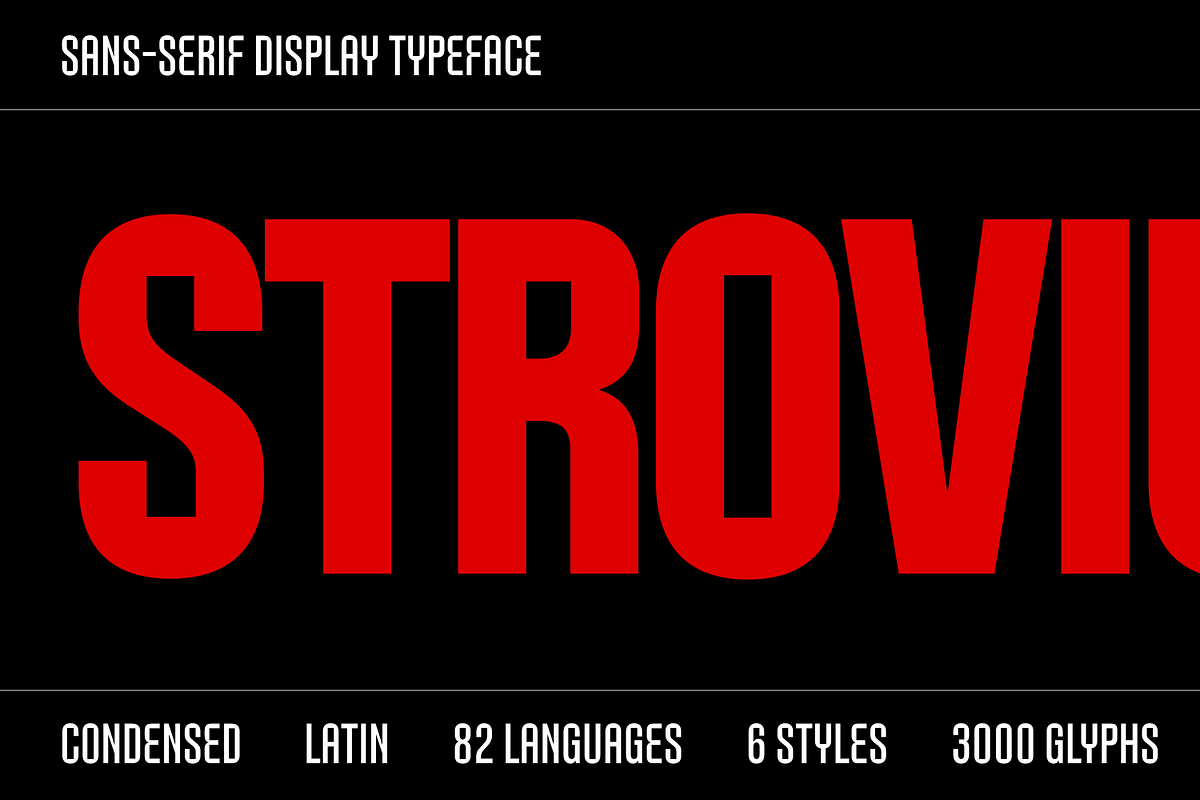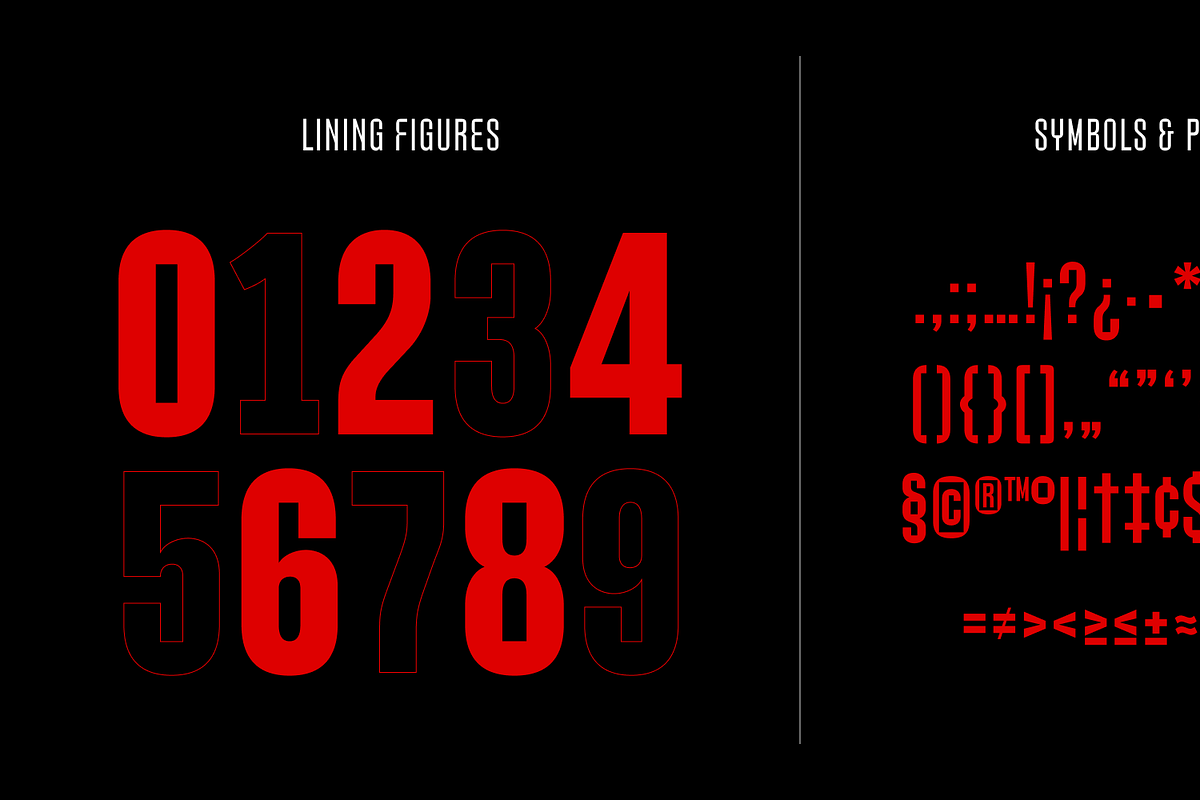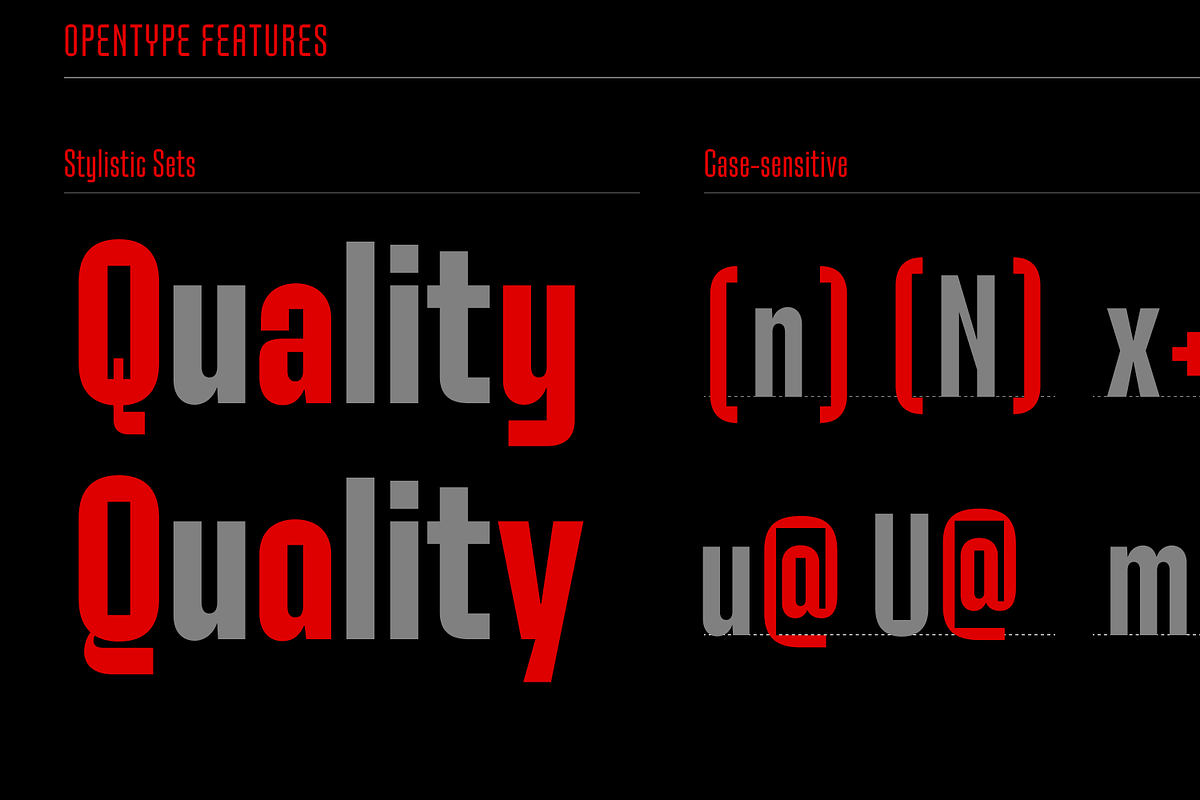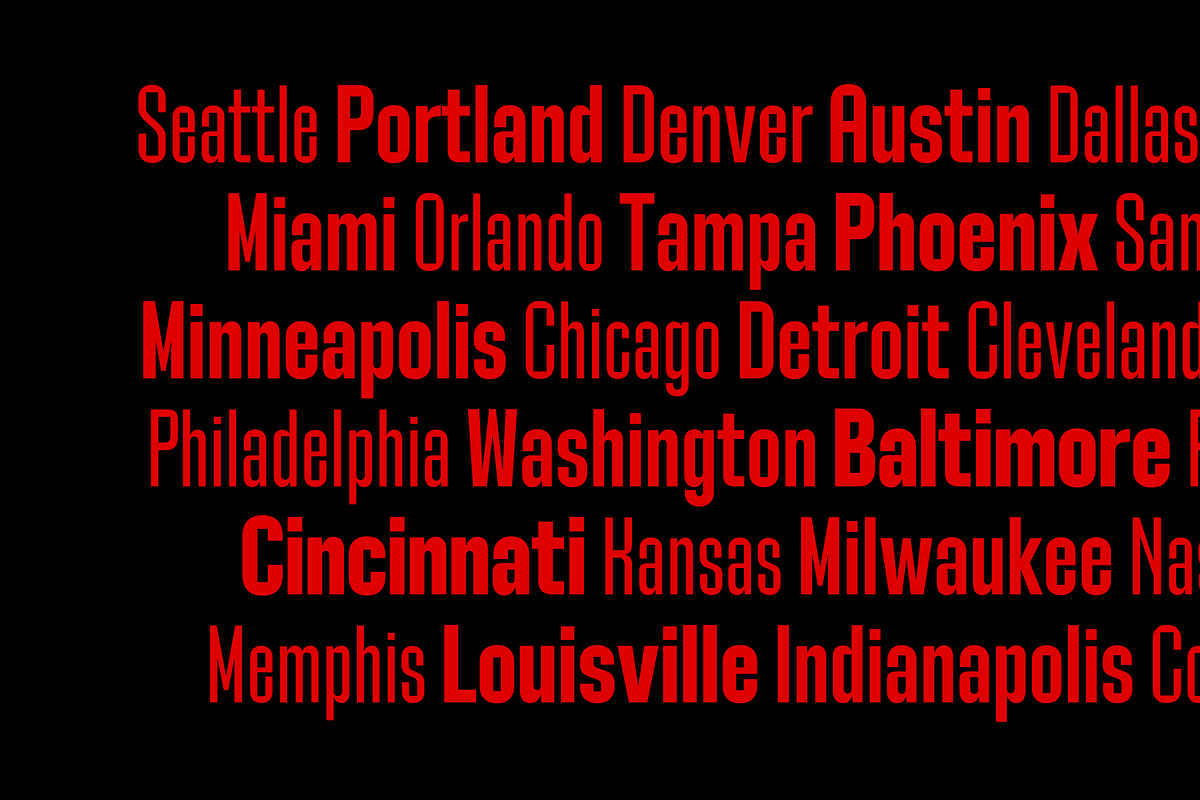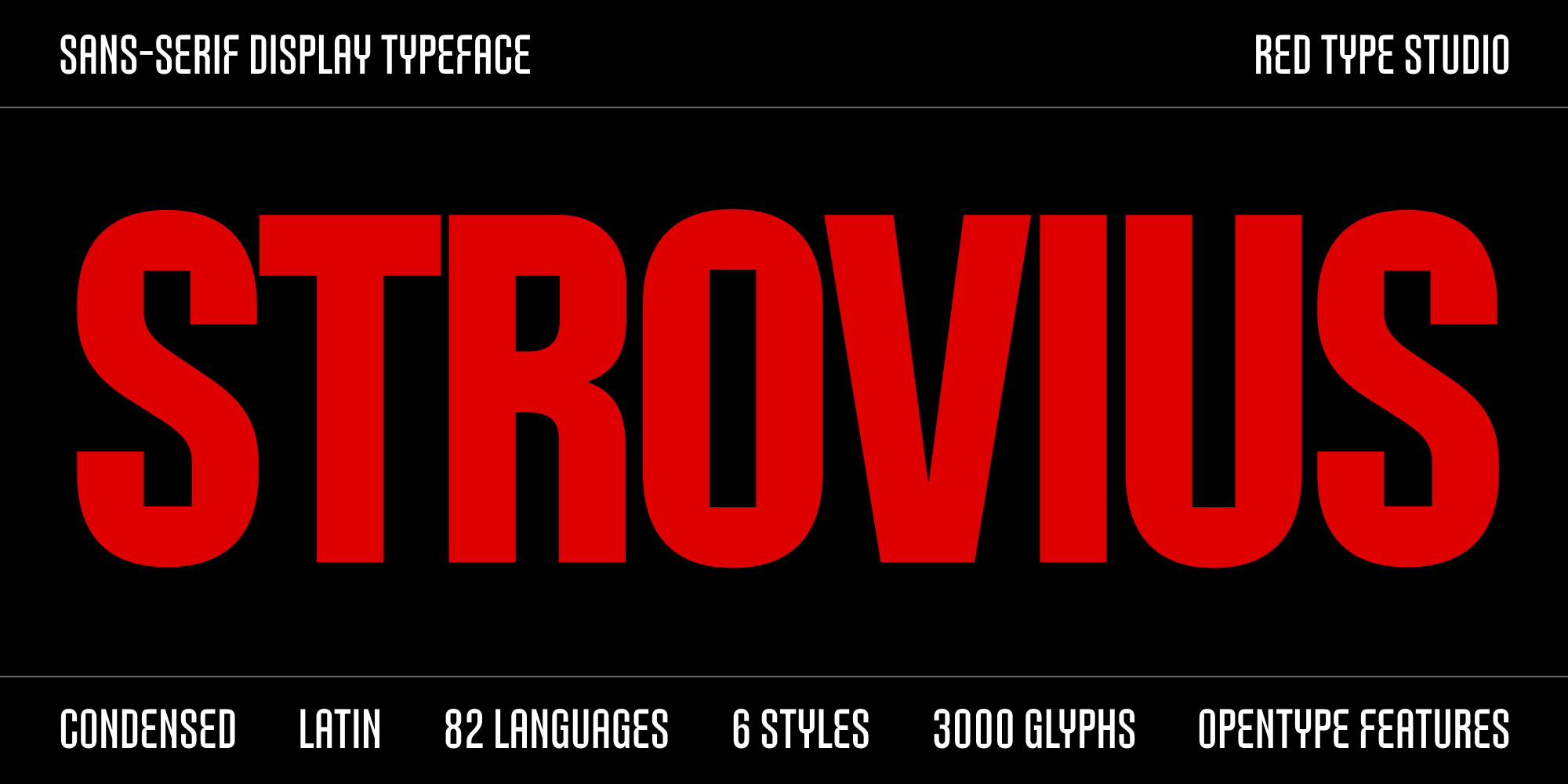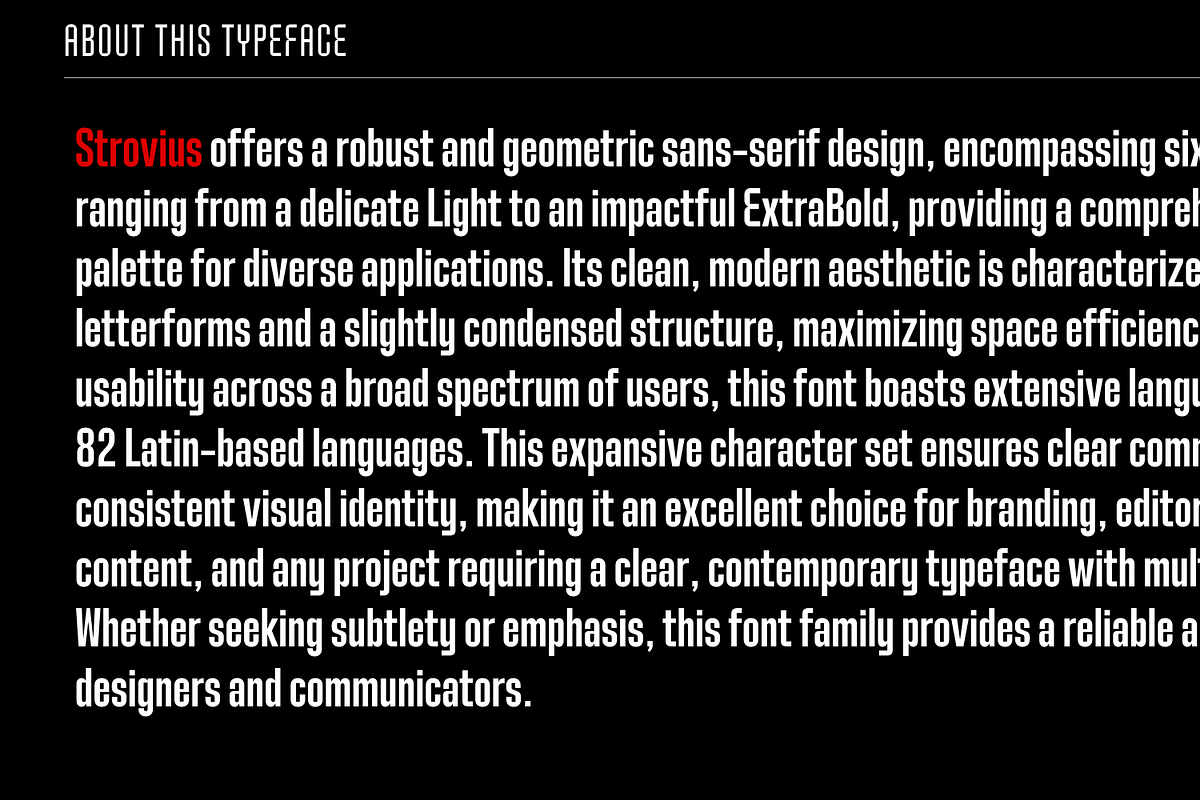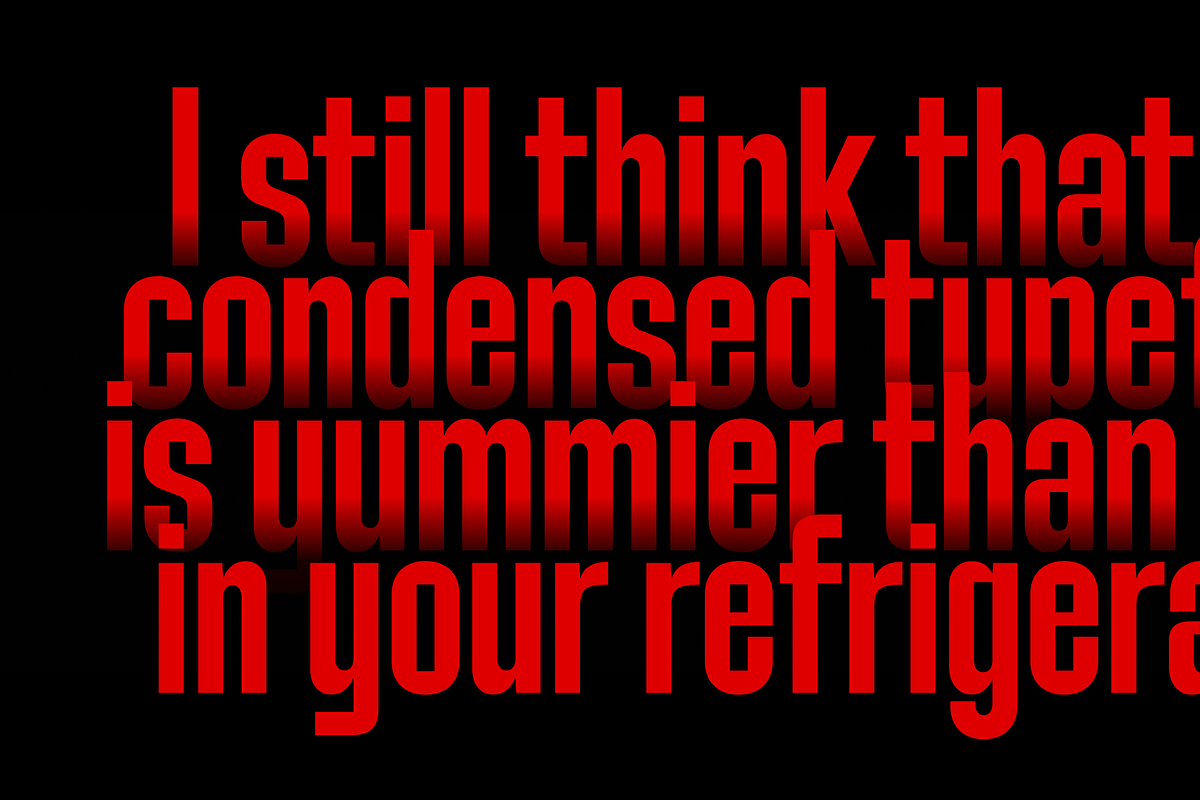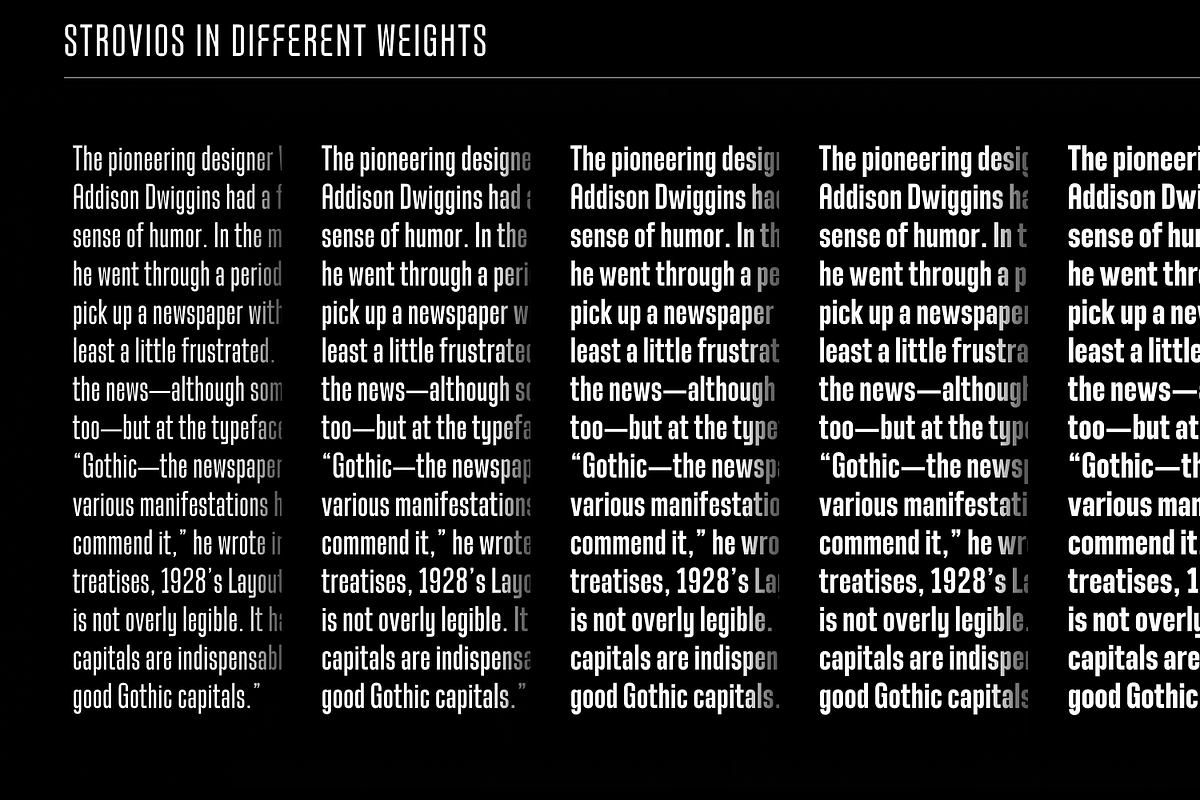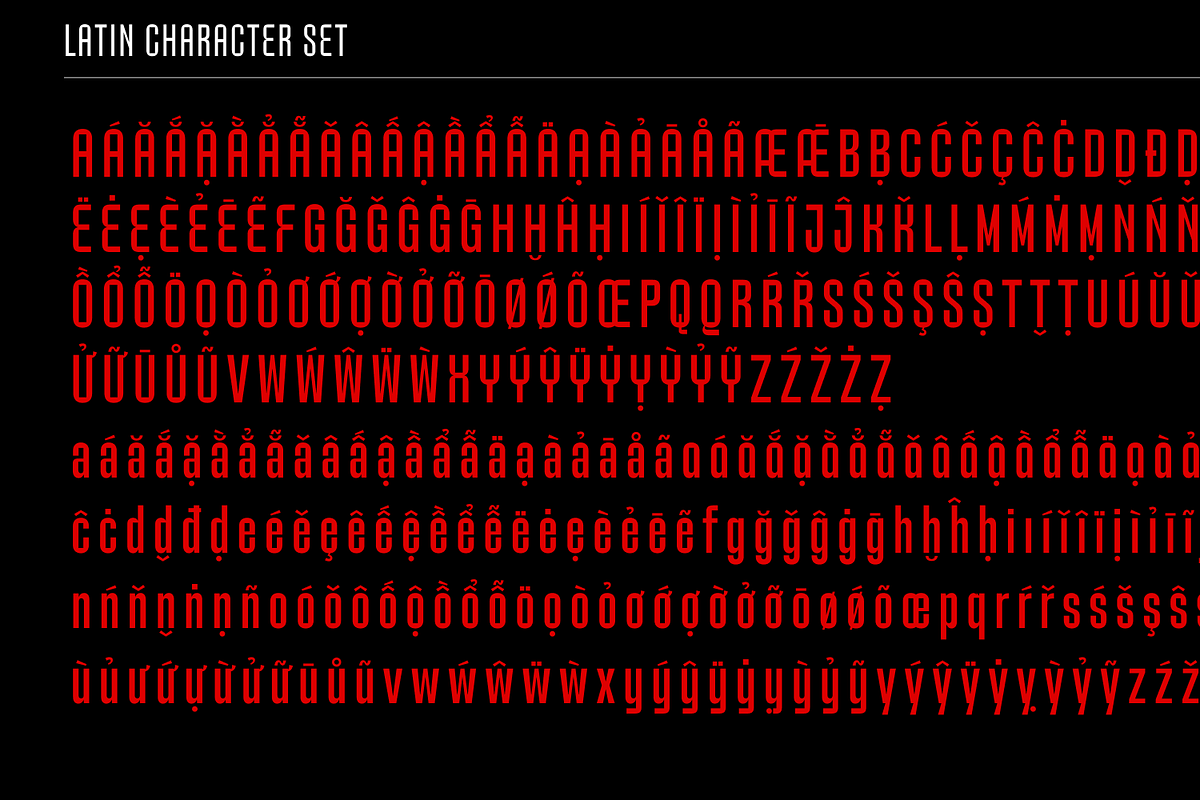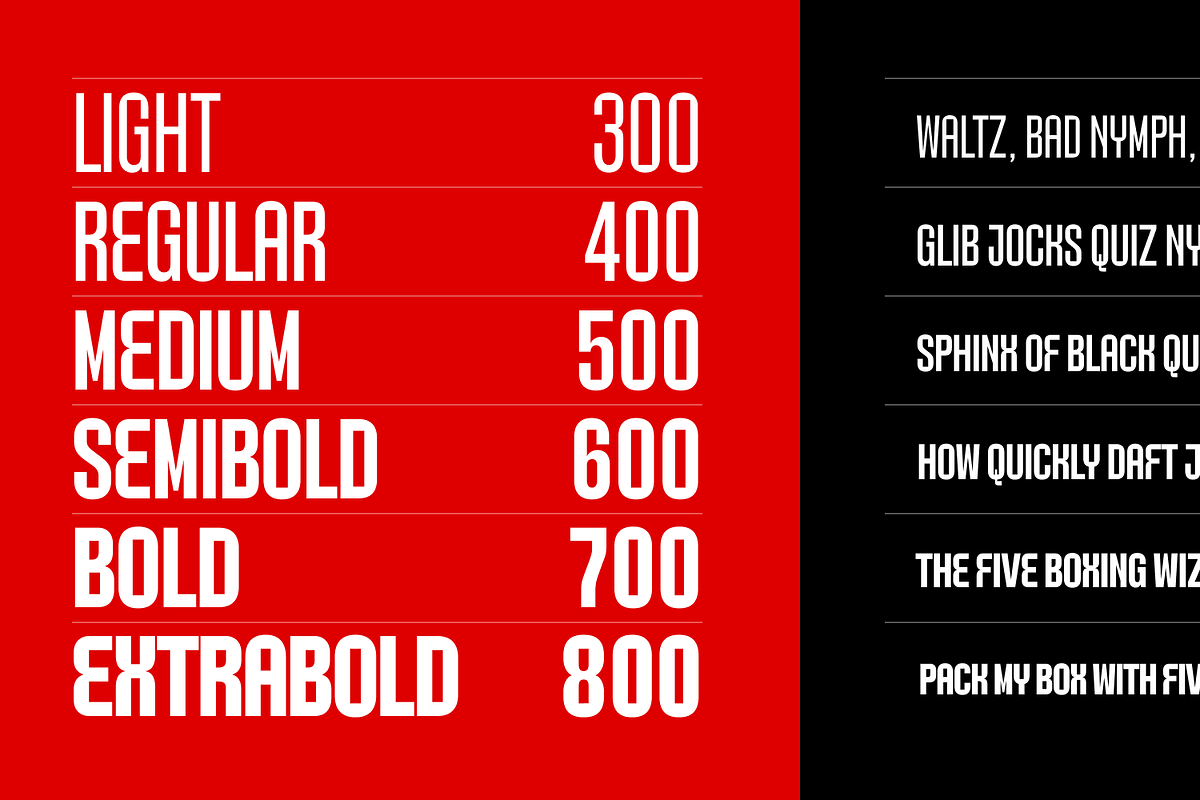
Strovius Condensed Font
Strovius offers a robust and geometric sans-serif design, encompassing six distinct weights ranging from a delicate Light to an impactful ExtraBold, providing a comprehensive typographic palette for diverse applications. Its clean, modern aesthetic is characterized by strong, simplified letterforms and a slightly condensed structure, maximizing space efficiency. Extending its usability across a broad spectrum of users, this font boasts extensive language support, covering 82 Latin-based languages. This expansive character set ensures clear communication and consistent visual identity, making it an excellent choice for branding, editorial design, web content, and any project requiring a clear, contemporary typeface with multilingual capabilities. Whether seeking subtlety or emphasis, this font family provides a reliable and adaptable tool for designers and communicators.